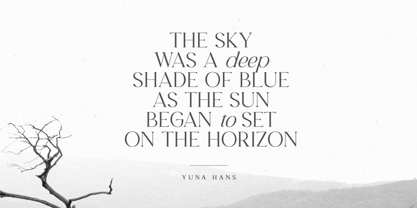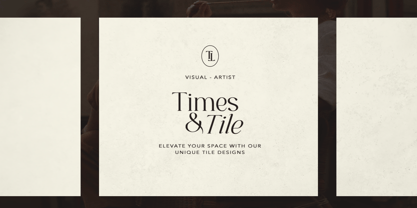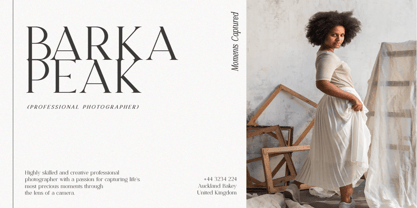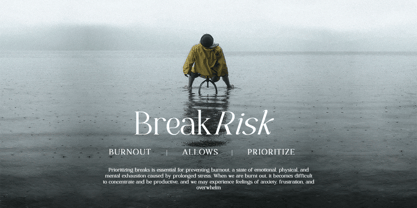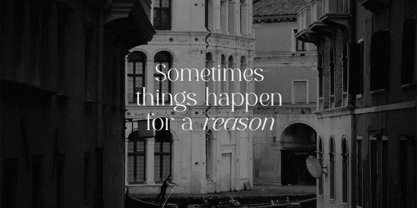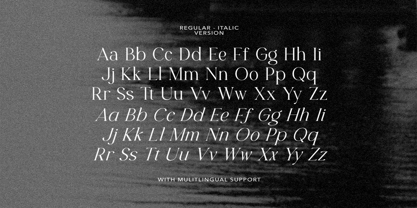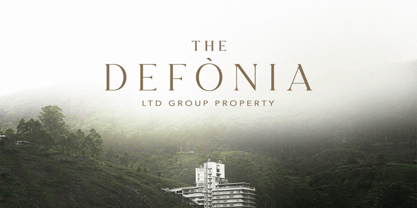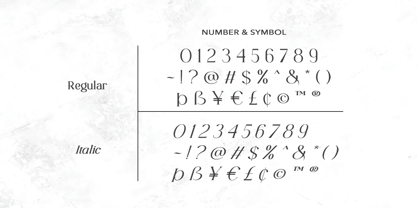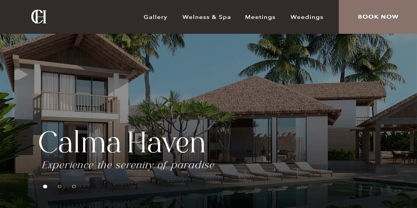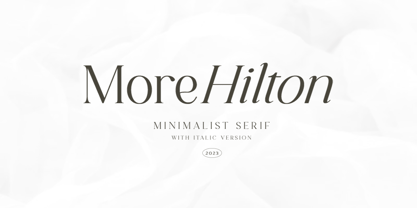
More Hilton
A família de fontes More Hilton foi desenhada por Sarid Ezra, Dzikrul Aulia e publicada pela Bale Type. More Hilton contém 2 estilos e opções de pacote familiar.
More Hilton is a minimalist serif font family. Comes with two style, Regular & Italic. With simple and minimal looks, this fonts will suitable for any purposes. You can use this font for branding, quotes, logo, or you can also use this font for complimentary of your script font. More Hilton also support multi language!
Designers: Sarid Ezra, Dzikrul Aulia